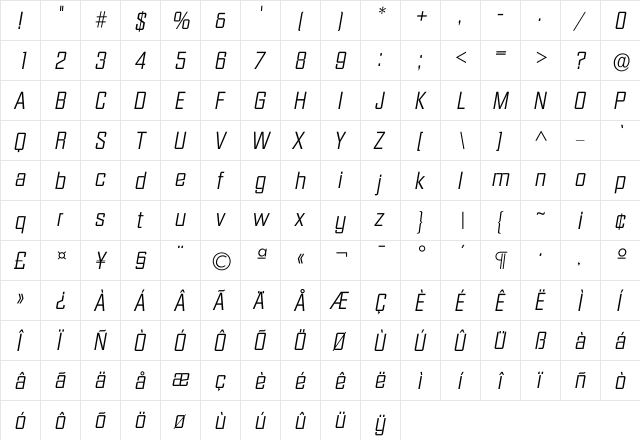
Idiamante Light
Design Context for Idiamante Typeface
Idiamante is a composed and adaptable typeface that performs quietly and consistently across a wide range of design contexts. The delicate stroke weight brings airiness and refinement to layouts.